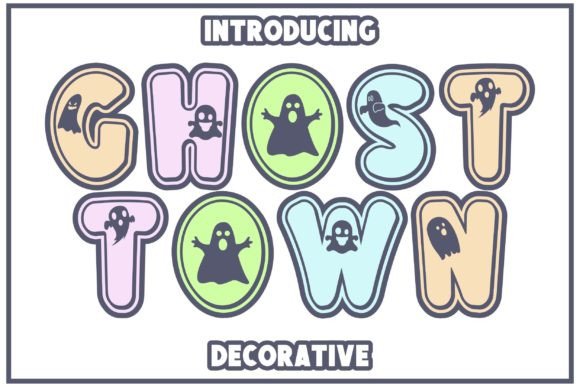
Ghost Town Font: A Fun and Adorable Decorative Font to Add Cheerfulness to Your Designs
Are you looking for a font that can add a touch of cheerfulness and playfulness to your designs? Look no further than the Ghost Town Font! This fun and adorable decorative font is perfect for a wide range of design projects, from covers and posters to crafty DIY projects and anything that needs to pop. In this article, we’ll take a closer look at the Ghost Town Font, its features, and how you can use it to elevate your designs.
What is Ghost Town Font?
Ghost Town Font is a decorative font designed to add a touch of whimsy and playfulness to your designs. Its unique and quirky style makes it perfect for designs that require a bit of personality and flair. Whether you’re working on a children’s book, a poster, or a DIY craft project, Ghost Town Font is sure to bring a smile to your face and add a touch of cheerfulness to your design.
Key Features of Ghost Town Font
- Unique and Quirky Style: Ghost Town Font has a one-of-a-kind style that sets it apart from other fonts.
- Playful and Cheerful: This font is designed to add a touch of playfulness and cheerfulness to your designs.
- Perfect for Decorative Designs: Ghost Town Font is ideal for designs that require a decorative touch, such as covers, posters, and crafty DIY projects.
- Easily Readable: Despite its decorative style, Ghost Town Font is easily readable, making it perfect for designs that require a clear and concise message.
How to Use Ghost Town Font in Your Designs
Ghost Town Font is a versatile font that can be used in a wide range of design projects. Here are some ideas to get you started:
Covers and Posters
Ghost Town Font is perfect for creating eye-catching covers and posters. Its playful and cheerful style makes it ideal for designs that require a bit of personality and flair. Use it to create posters for events, advertisements, or even just to add a touch of whimsy to your social media graphics.
Crafty DIY Projects
If you’re a crafty person, you’ll love using Ghost Town Font in your DIY projects. Whether you’re making cards, scrapbooking, or creating handmade gifts, this font is sure to add a touch of personality to your projects.
Digital Designs
Ghost Town Font is also perfect for digital designs, such as social media graphics, blog posts, and website headers. Its easily readable style makes it perfect for designs that require a clear and concise message.
Tips and Tricks for Using Ghost Town Font
Here are some tips and tricks to help you get the most out of Ghost Town Font:
Experiment with Different Sizes and Colors
Ghost Town Font looks great in a variety of sizes and colors. Experiment with different sizes and colors to find the perfect combination for your design.
Pair it with Other Fonts
Ghost Town Font pairs well with other fonts, such as sans-serif fonts and script fonts. Experiment with different font combinations to find the perfect pairing for your design.
Use it to Add Emphasis
Ghost Town Font is perfect for adding emphasis to your designs. Use it to highlight important information or to add a touch of personality to your text.
| Font Name | Ghost Town Font |
| Author | Doodle Alphabet |
In conclusion, Ghost Town Font is a fun and adorable decorative font that’s perfect for adding a touch of cheerfulness and playfulness to your designs. Its unique and quirky style makes it perfect for a wide range of design projects, from covers and posters to crafty DIY projects and digital designs. With its easily readable style and versatile design, Ghost Town Font is sure to become a favorite in your font collection.